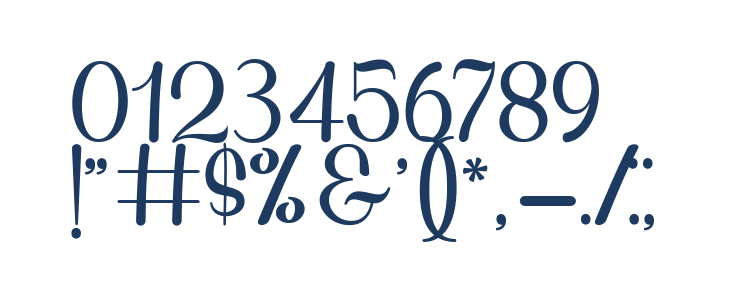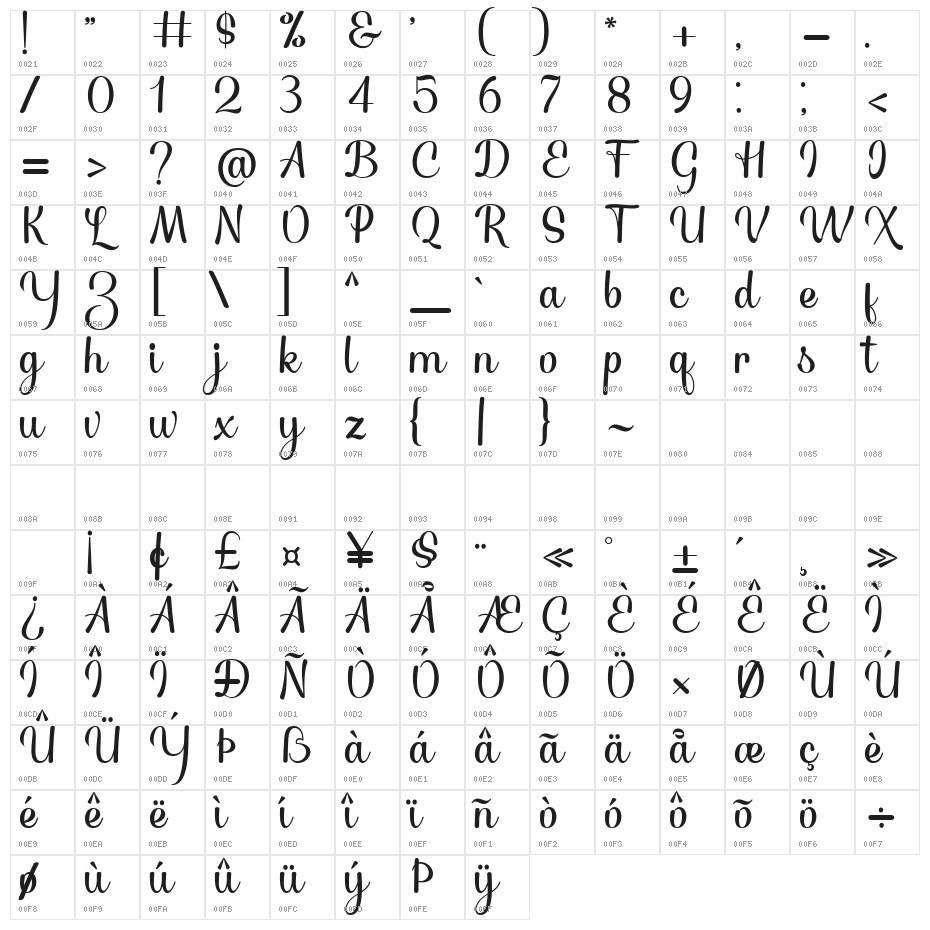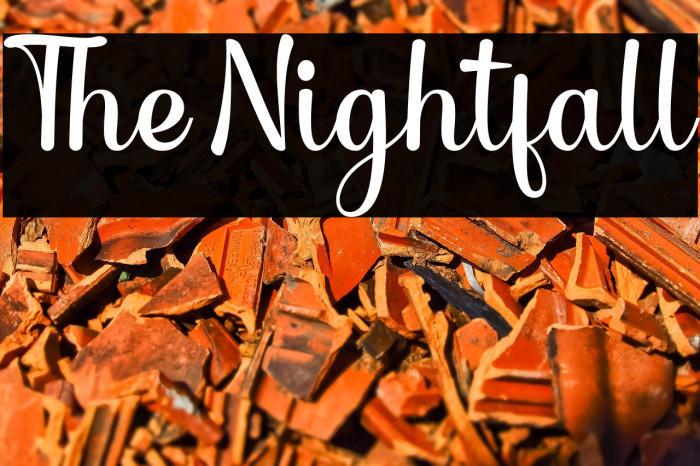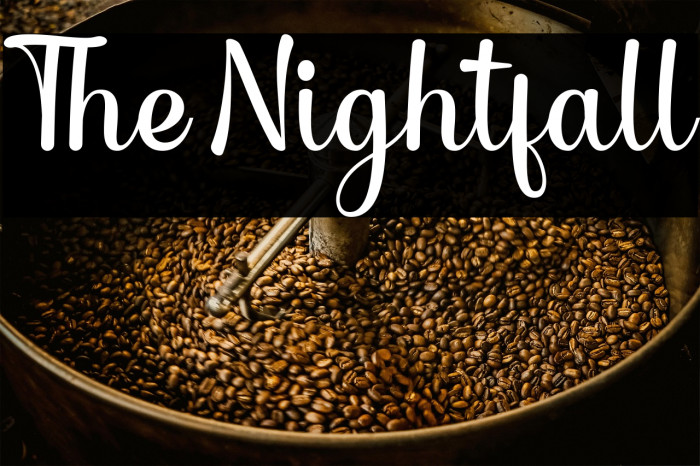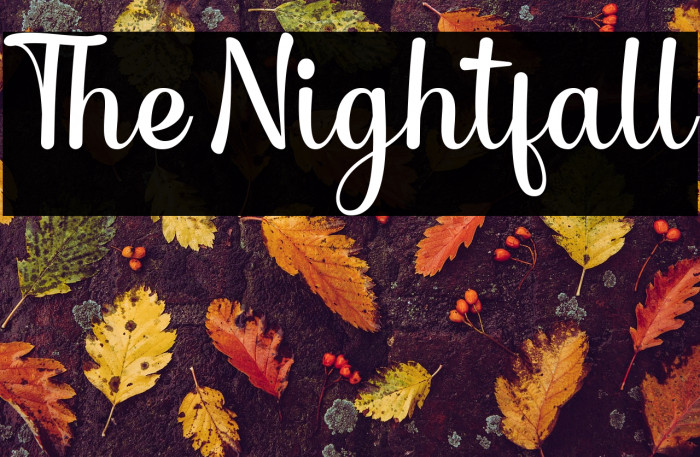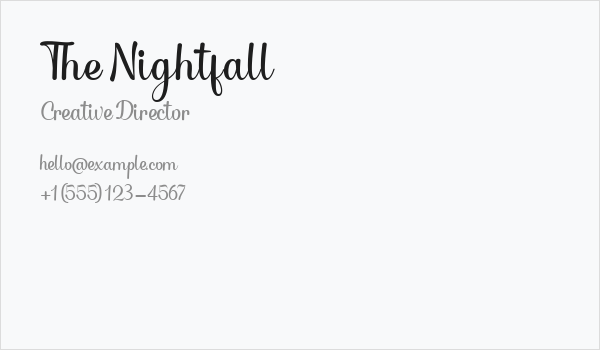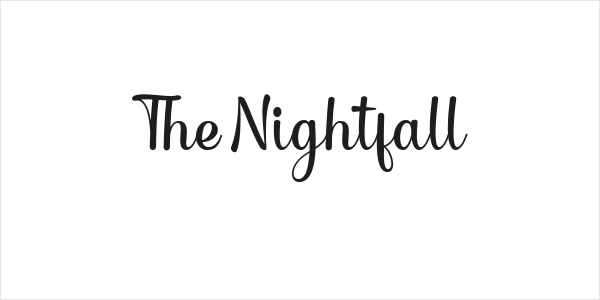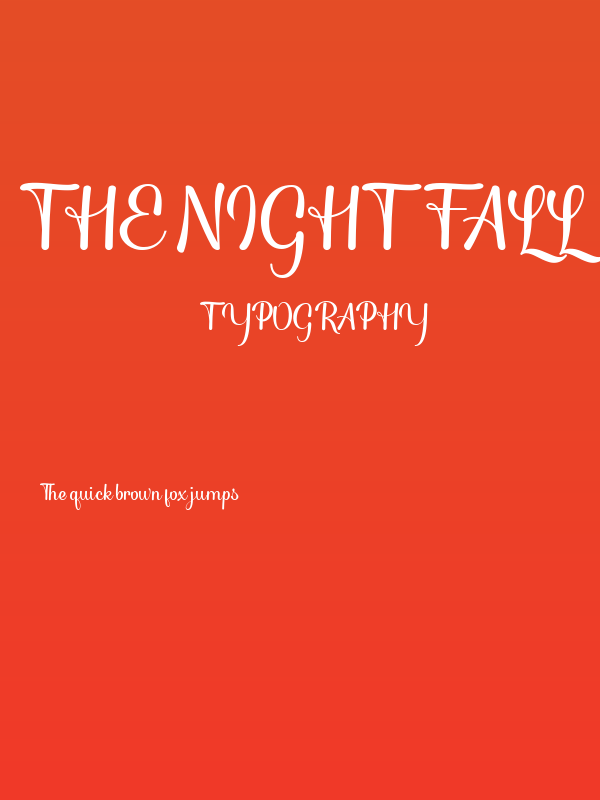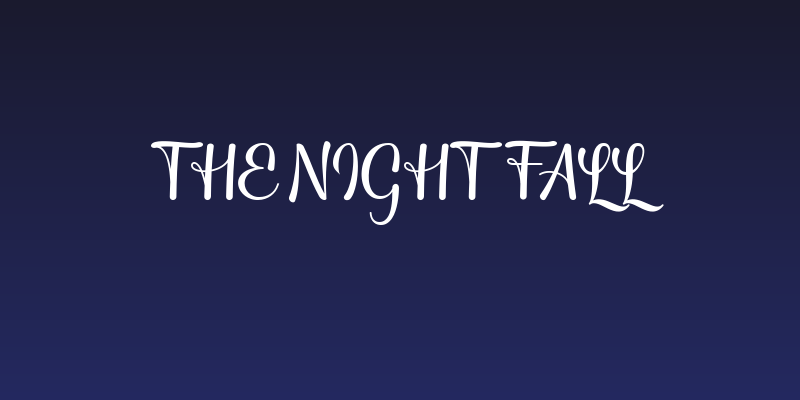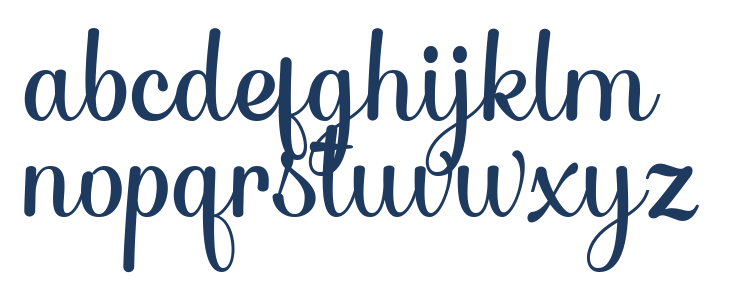
The Nightfall Font
The Nightfall Description
This font features a flowing, cursive style that combines elegance with readability. The uppercase letters are characterized by their smooth curves and slight slant, giving them a graceful appearance. The lowercase letters maintain a consistent flow, with some characters featuring loops that add to the overall charm. The numerals are designed to match the script style, ensuring uniformity across all characters. Special characters are crafted with the same attention to detail, making them suitable for decorative purposes. The font's overall aesthetic is both sophisticated and approachable, making it versatile for various design needs.
| Use Case | Headlines, Invitations, Branding |
| Proposed Projects | Ideal for wedding invitations, greeting cards, branding, and elegant signage. |